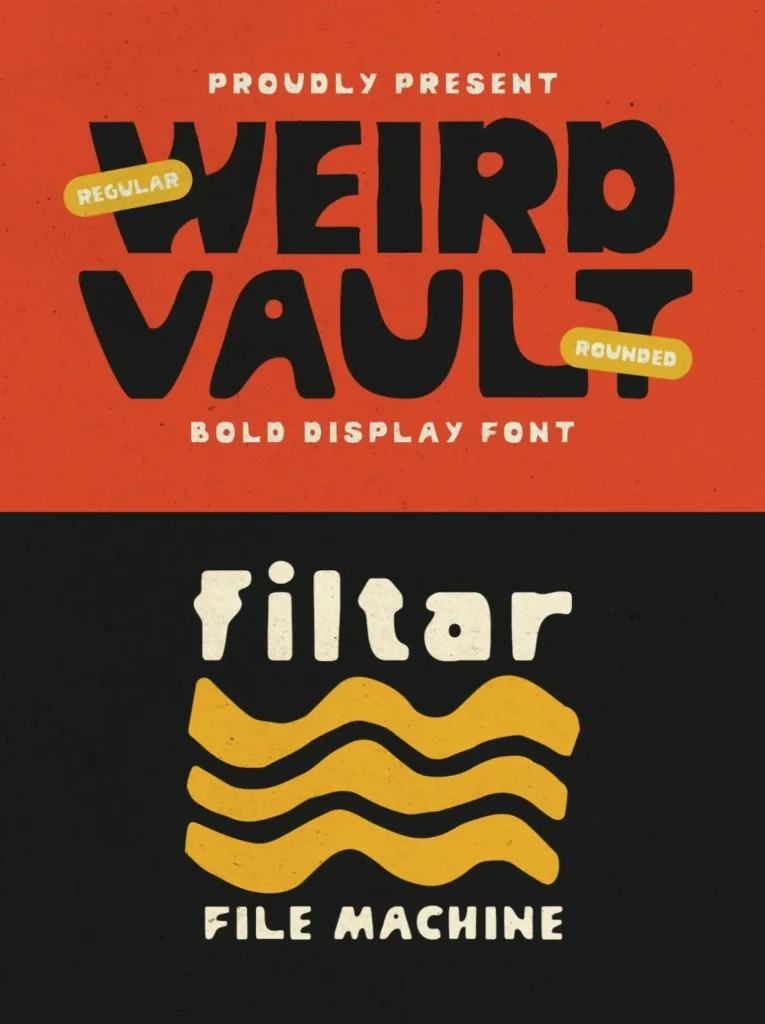
Weird Vault Font
Weird Vault — Bold Handmade Impact
Weird Vault is a roughly handmade display bold font with a strong, human-made look. Its irregular character gives headlines and visual identities a more personal tone, while the bold weight keeps the message clear and direct.
The font includes both regular and rounded styles, so you can choose the finish that suits your project. Use Weird Vault for logotypes, quotes, branding, posters, and any design that needs bold presence with a handmade feel. It also supports multiple languages, making it a practical choice for expressive display typography across a range of creative work.